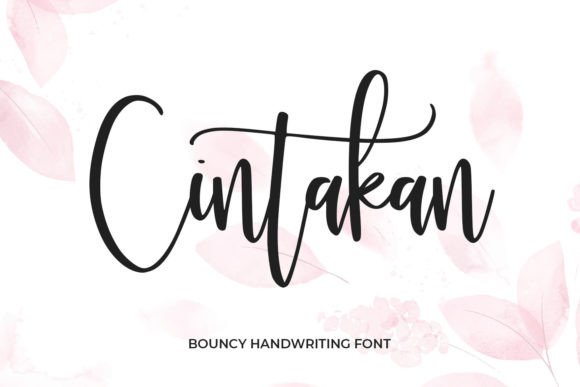
Immerse yourself in the captivating world of Cintakan Font, a script font crafted with meticulous precision and imbued with a captivating charm. Each letter dances across the page like a graceful melody, adorned with intricate details that elevate your designs to new heights of elegance.
Journey through a realm of creativity with Cintakan Font, a script font that captivates the senses and ignites the imagination. Dive into a world of limitless possibilities, where your words transform into exquisite works of art.
With Cintakan Font, the ordinary becomes extraordinary, as it effortlessly elevates your designs to new heights. Its enchanting curves and sweeping strokes add a touch of sophistication and allure to any project, leaving a lasting impression on your audience.
Unleash the power of expression with Cintakan Font, the ultimate font for playing cards. Its playful personality and dynamic style bring a sense of excitement and intrigue to your gaming experience. Each card becomes a canvas for storytelling, inviting players to embark on captivating adventures.
Let your creativity soar with Cintakan Font, the script font that transforms your projects into masterpieces. Discover the joy of seamless creativity, as words flow effortlessly onto the page, imbued with an air of elegance that leaves a lasting impression.
Embark on a journey of visual enchantment with Cintakan Font. Its enchanting allure and captivating details add a touch of magic to your designs, making them shine with an ethereal brilliance. Experience the joy of creating something truly extraordinary, where every element comes together in perfect harmony.